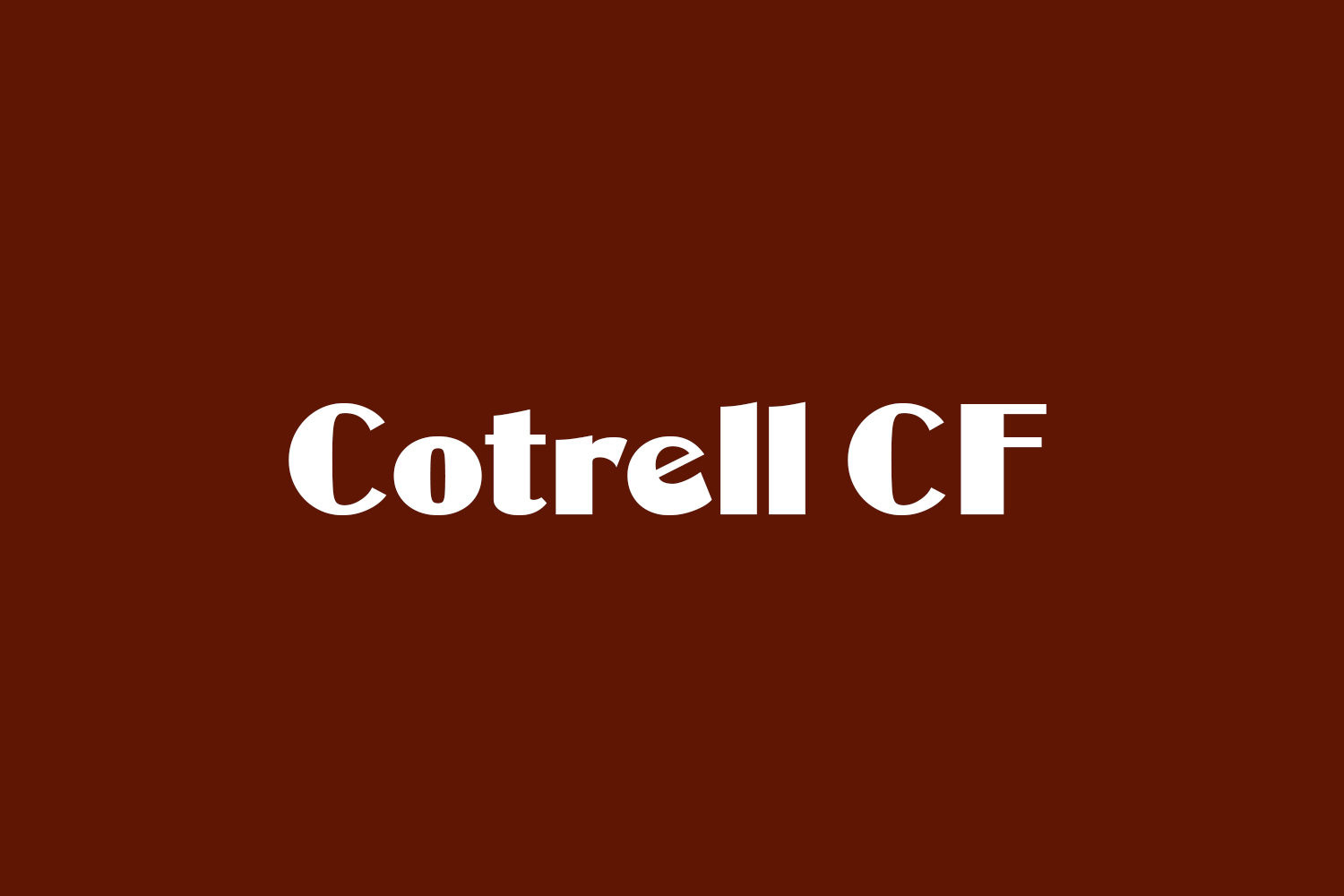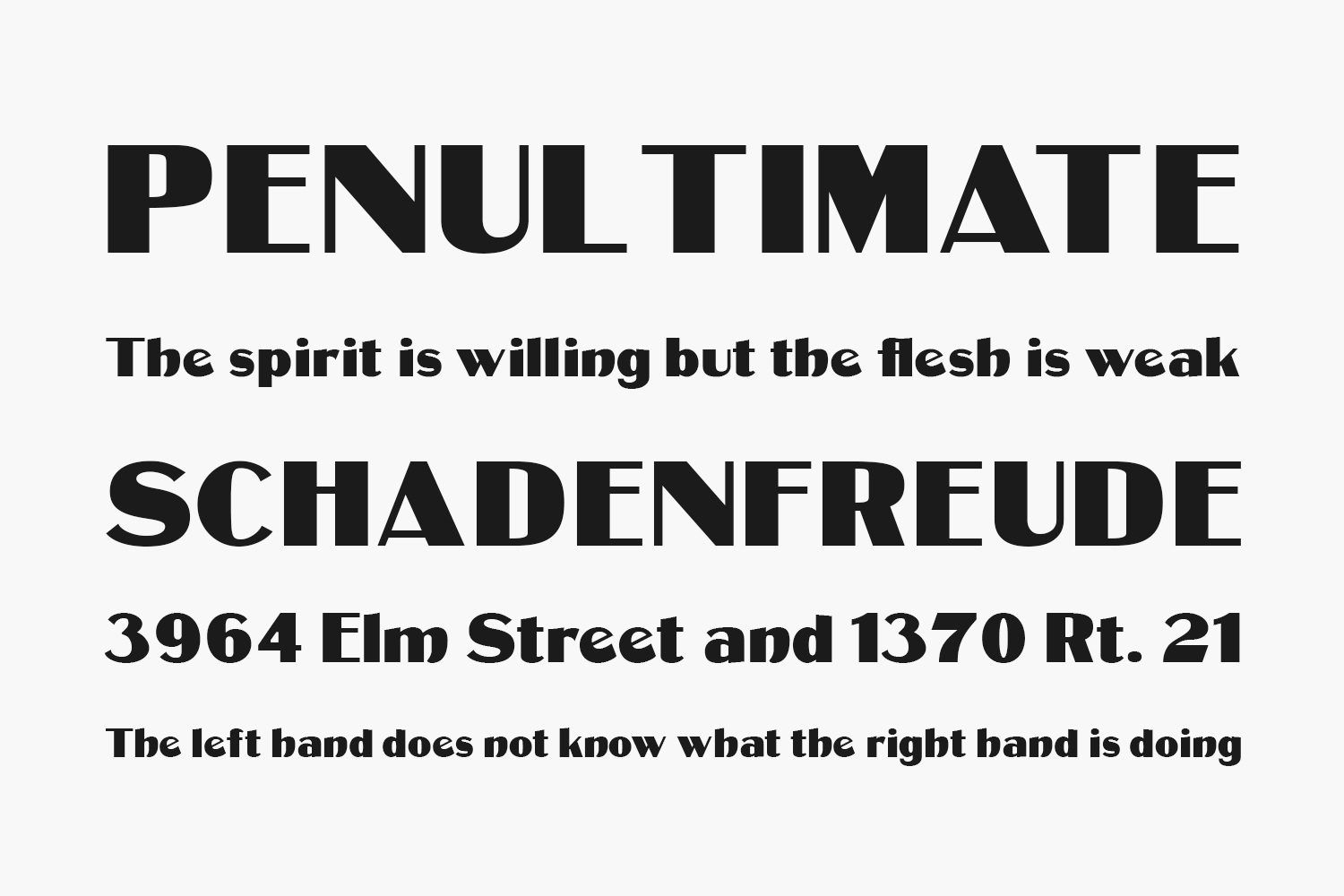
Cotrell CF Free Font is an extrabold sans serif display font and is suitable for posters, advertising, logos, headlines, signage and greeting cards. I found the original metal typeface, Matthews, in Specimen Book and Catalog, published by the Inland Type Foundry (May 1902). It appears to be in the public domain. I suppressed Matthew’s boisterous flares on several glyphs to give COTRELL a more contemporary feel; the lower case “f” and “g” were completely redesigned for the same reason. (N.B.: the swashes for “e,” “h” “m” and “n” have right angled alternates for the more cautious typographer.)
Besides the swashes, I found other design features of the original typeface especially attractive: 1. Slanted top serifs, whether straight lines or subtle curves; and, 2. the glyph “e” which looks like a hybrid of a swash and an italic.